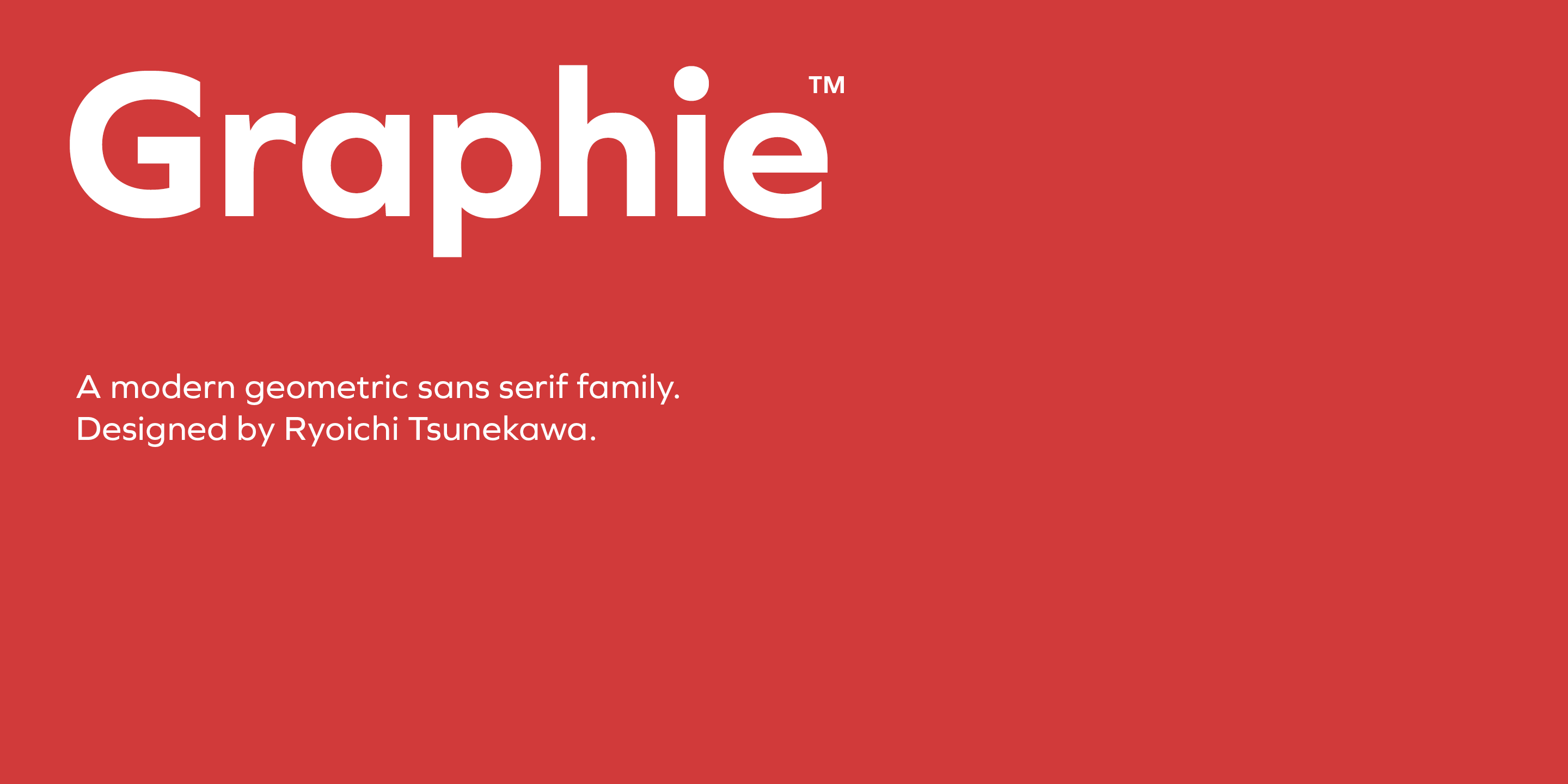
This artistic display typeface is perfect for graphic design studios, creative portfolios, art exhibitions, design conferences, visual identity projects, artistic publications, contemporary galleries, creative workshops, and expressive logo design.
Graphie Font brings excitement to your design projects with its artistic flair and creative expression. This distinctive display font features innovative letterforms that blur the line between typography and visual art, making it perfect for designers and creative professionals who want to make bold artistic statements. The font's unique character and expressive qualities create immediate visual impact while showcasing creative sophistication and design innovation.
The Graphie Font family includes regular, bold, and outline variations, providing designers with creative flexibility for developing artistic brand communications. Each style maintains the font's signature creativity while offering different levels of visual drama for various artistic applications and experimental design projects.
The carefully crafted letterforms celebrate the intersection of typography and visual art. Download Graphie Font now and expand your creative toolkit with this expressive typography solution that transforms ordinary text into extraordinary visual experiences with artistic integrity and creative excellence.